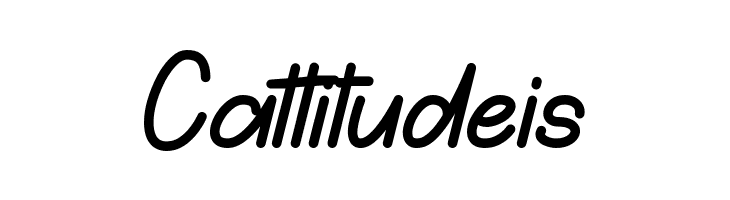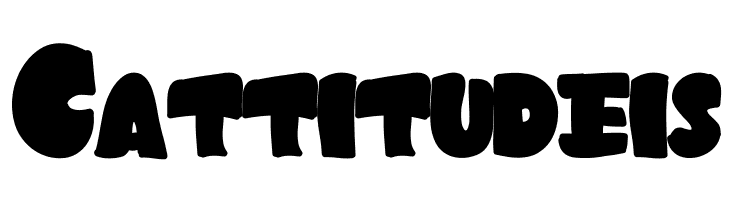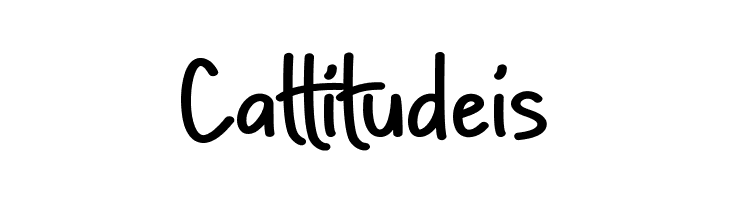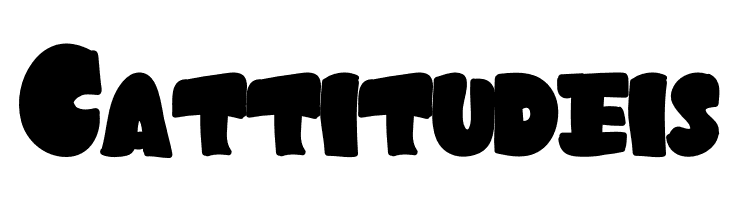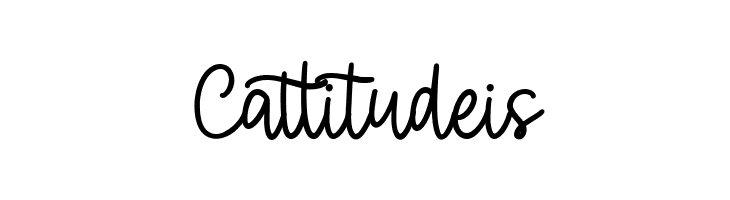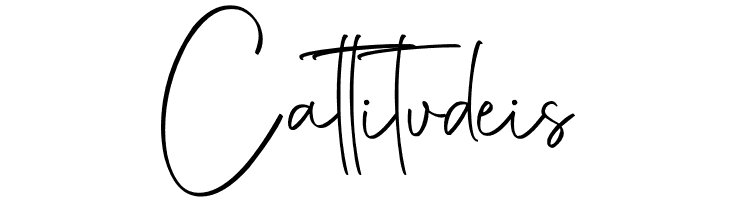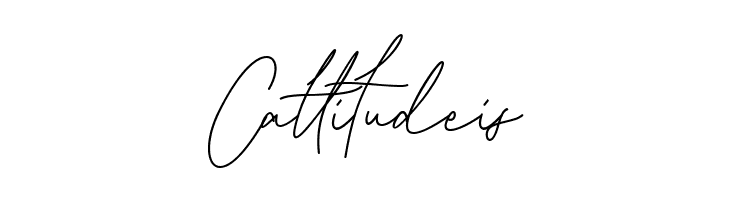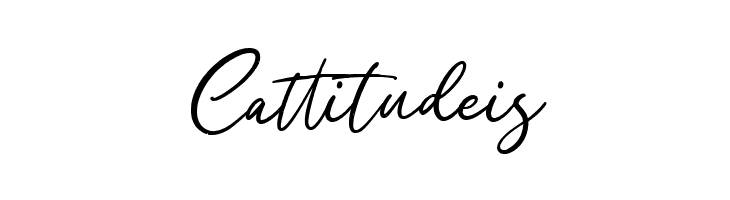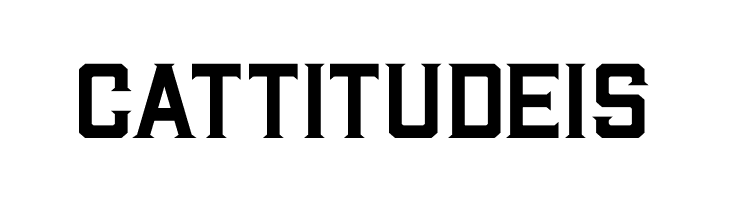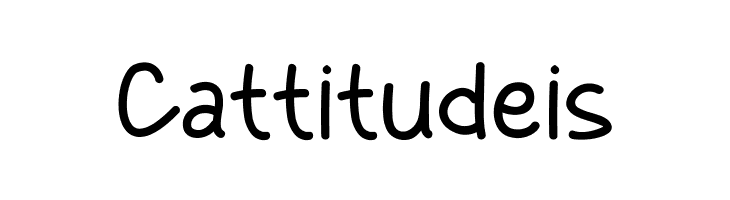
A playful, rough-textured font with a spooky, hand-drawn style.
A bold, jagged font with a spooky, horror-inspired design.
A bold, jagged font with a spooky, distressed style perfect for Halloween themes.
A bold, distressed font with a spooky, hand-drawn appearance.
A dynamic and elegant script font with fluid strokes and a graceful slant.
A bold, modern sans-serif font with uniform strokes and high legibility.
A playful, casual handwritten font with fluid, connected strokes.
A playful, casual handwritten font with flowing, connected letterforms.
A bold, decorative font with whimsical curves and loops.
A playful and decorative font with bold, whimsical characters.
A bold, geometric font with solid, block-like letterforms and subtle serifs.
A bold, expressive handwritten script with fluid, connected letters.
A lively, cursive font with bold, interconnected strokes and a dynamic slant.
An elegant and flowing script font with graceful, cursive letterforms.
A bold, playful font with a cartoonish, bubbly style.
A bold, playful font with thick, rounded characters and a whimsical style.
A bold, playful font with rounded, chunky characters ideal for eye-catching designs.
A bold, expressive handwritten font with brush-like strokes and artistic flair.
A bold, flowing script font with elegant curves and smooth connections.
A playful, handwritten font with smooth, flowing curves and a slightly slanted style.
A playful and energetic script font with flowing, cursive letterforms.
A bold, decorative font with vintage, ornate serifs and flourishes.
A modern sans-serif font with rounded edges and uniform stroke width.
A playful, casual handwritten font with smooth, rounded edges and consistent stroke width.
A casual, artistic handwritten font with fluid, connected letters and dynamic strokes.
A modern, elegant handwritten font with fluid, continuous strokes.
A dynamic and flowing script font with elegant, cursive letterforms.
A lively and expressive handwritten font with fluid, dynamic strokes.
A handwritten, cursive font with a casual and flowing style.
A bold, rounded font with a playful and friendly style.
A flowing, elegant script font with cursive letterforms and artistic flair.
A flowing, cursive font with elegant loops and swashes.